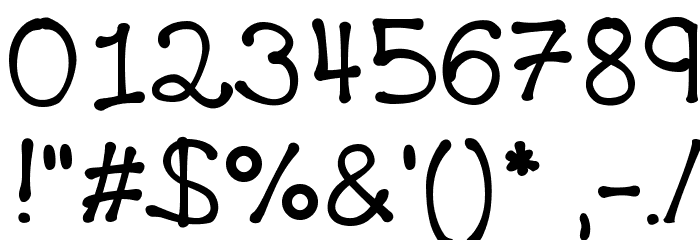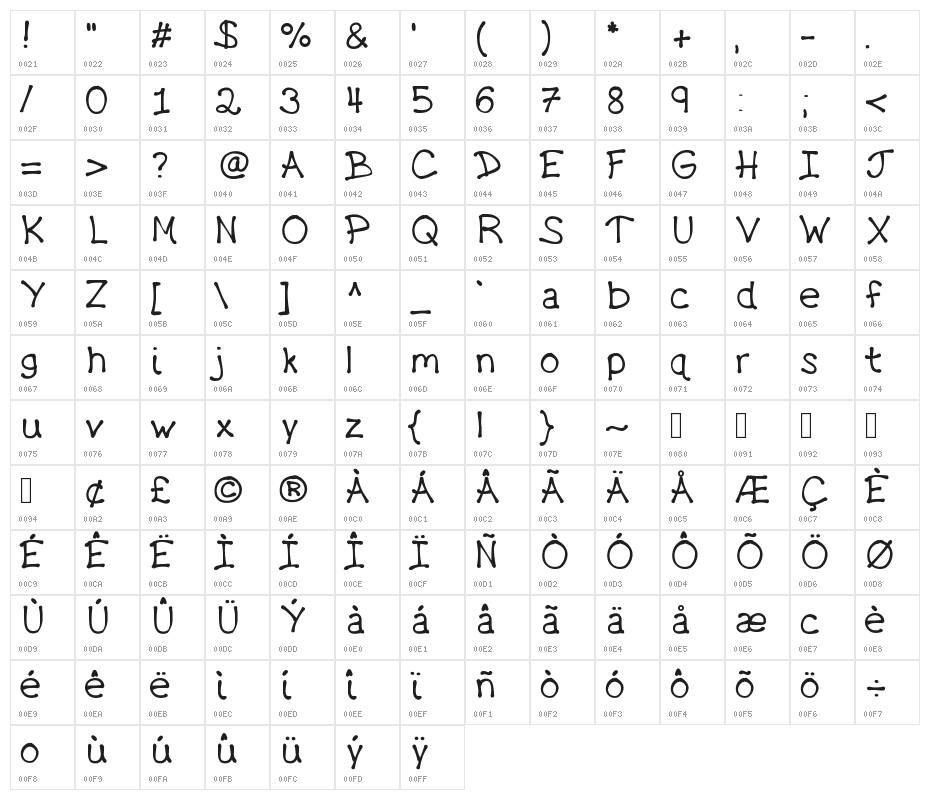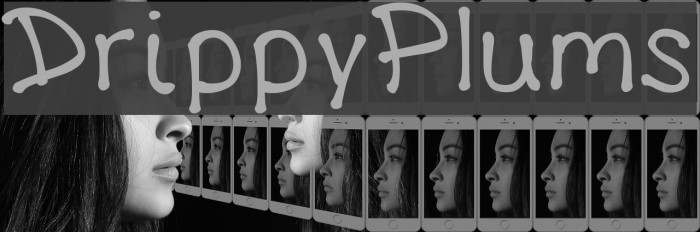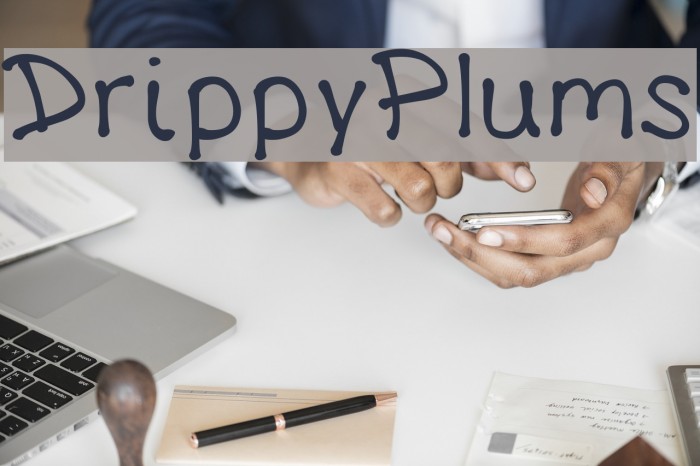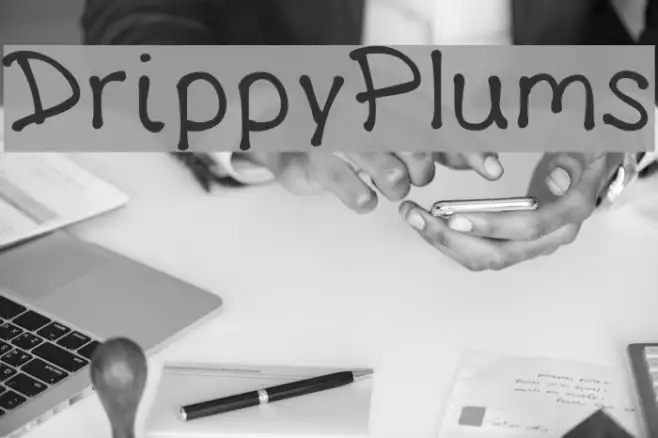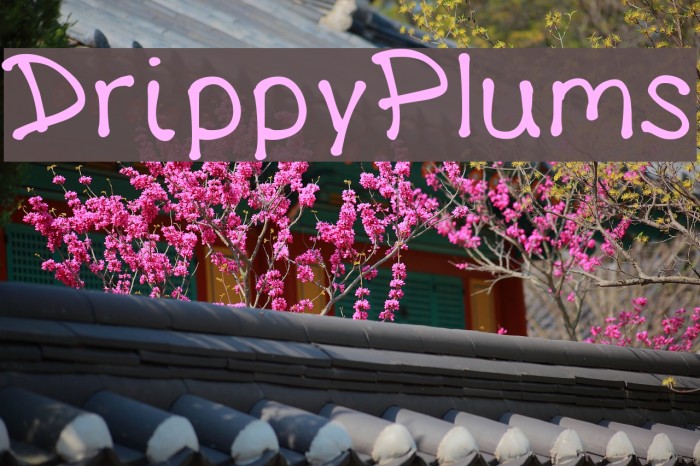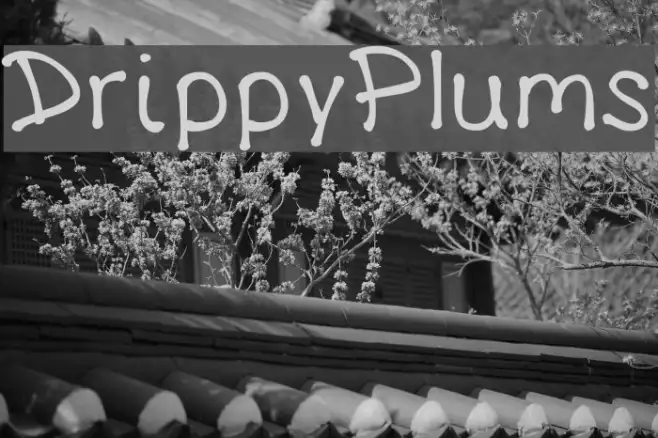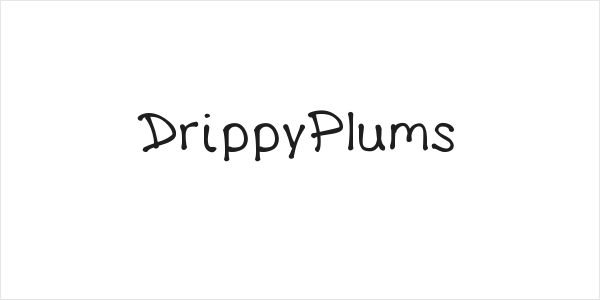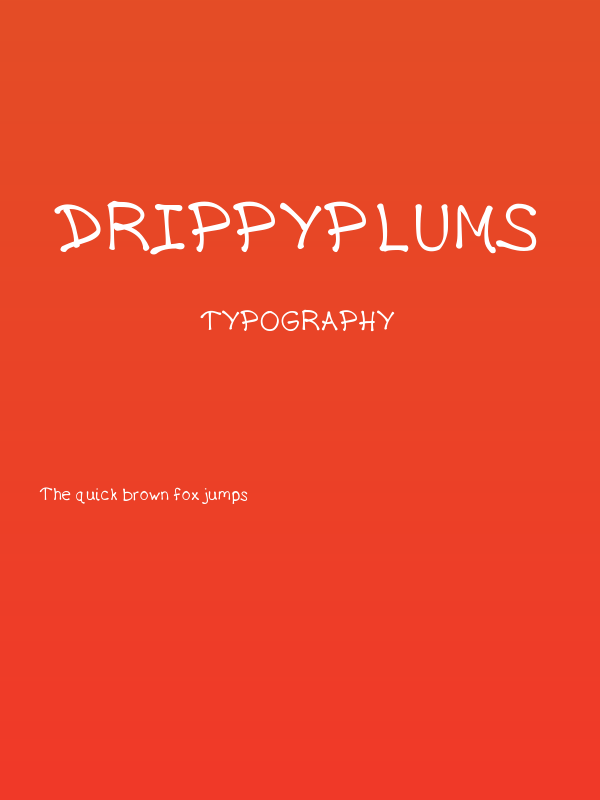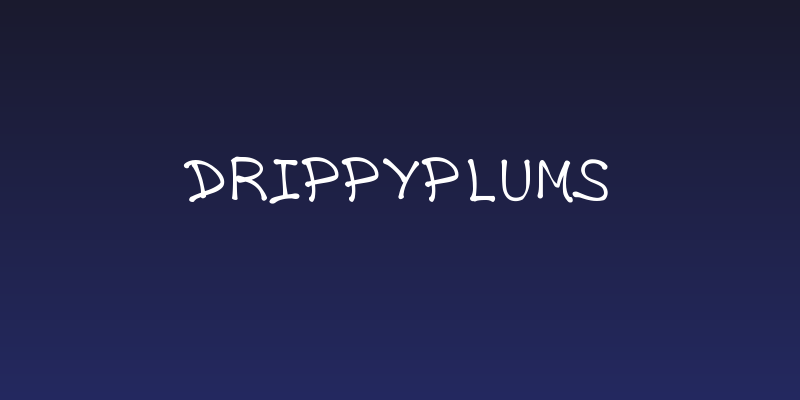
DrippyPlums Font
This playful and whimsical font features a handwritten style with a casual and relaxed appearance. The characters are slightly irregular, giving them a friendly and approachable feel. The strokes are moderately thick, with a consistent weight throughout, providing a balanced look. The rounded edges and slight slant add to its informal charm, making it suitable for creative and fun projects. The font maintains good legibility despite its quirky design, making it versatile for various uses. The spacing between characters is normal, ensuring readability while maintaining its unique style.
Overall StylePlayful
Use CaseHeadlines, Logos, Informal Text
Proposed ProjectsIdeal for children's books, greeting cards, playful branding, and social media graphics.